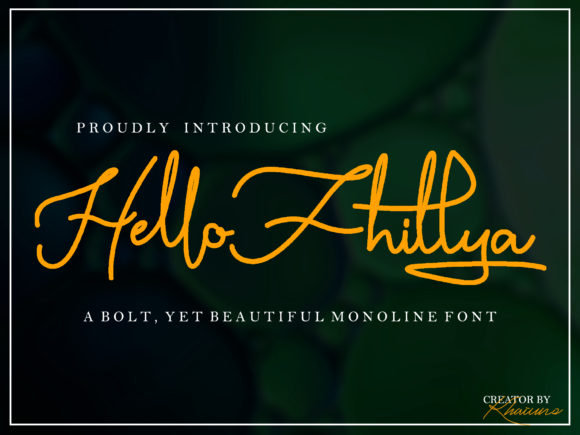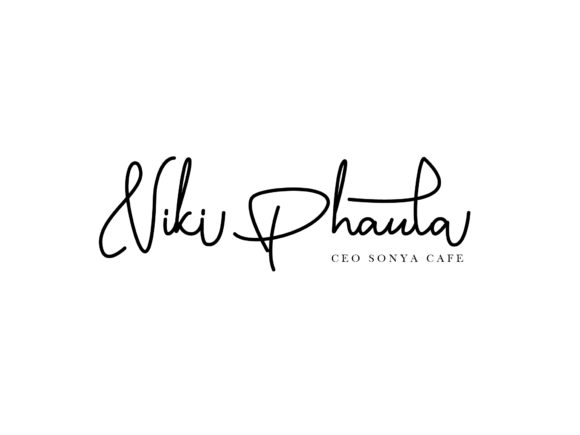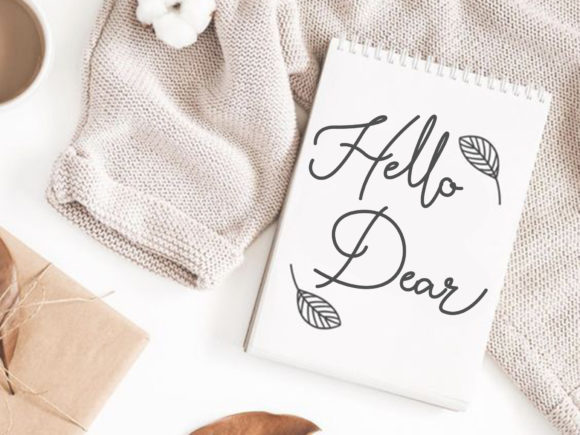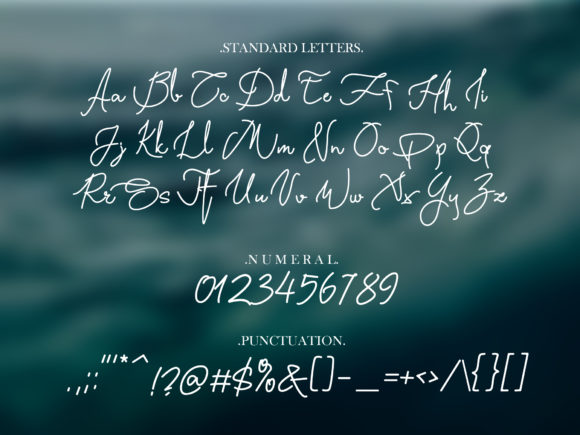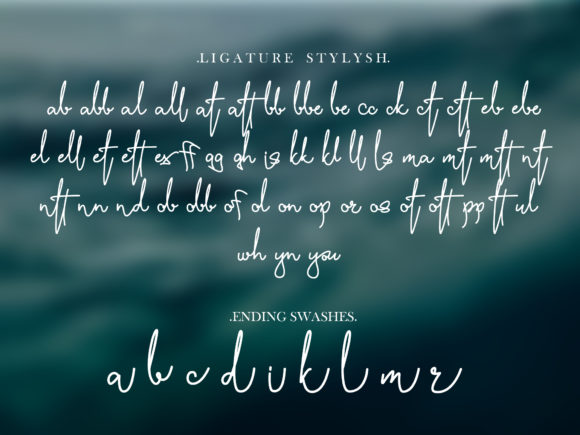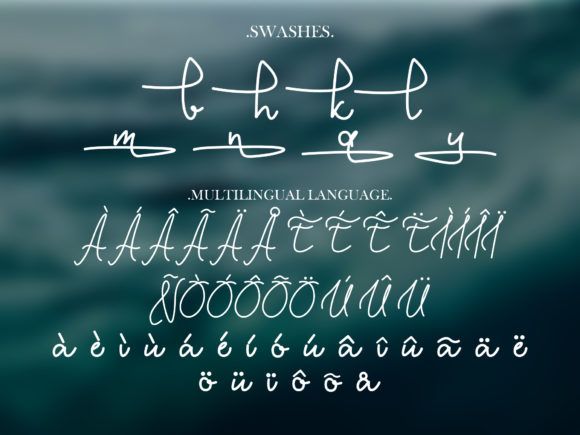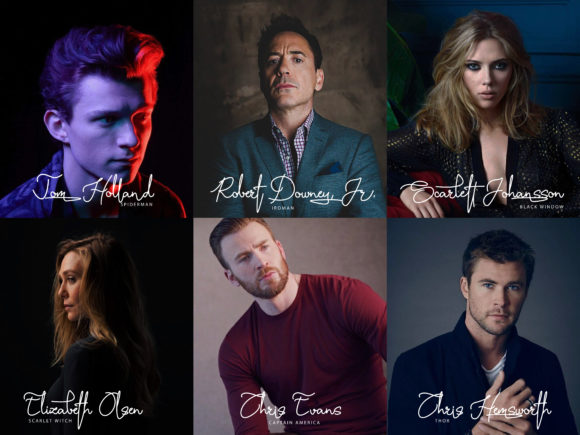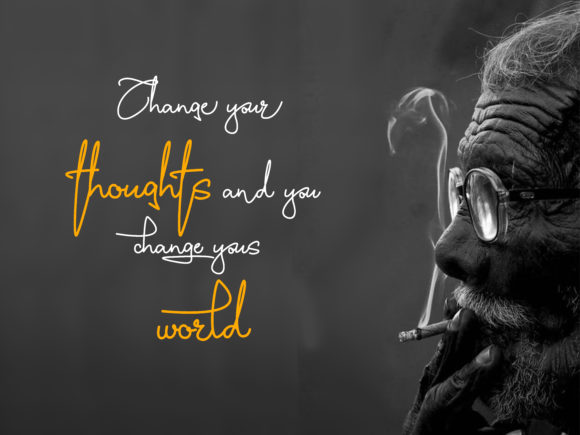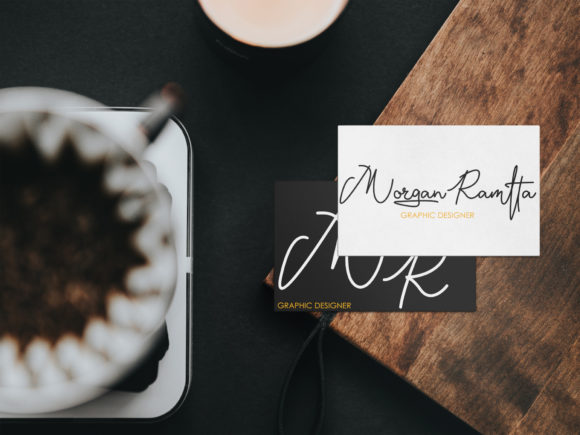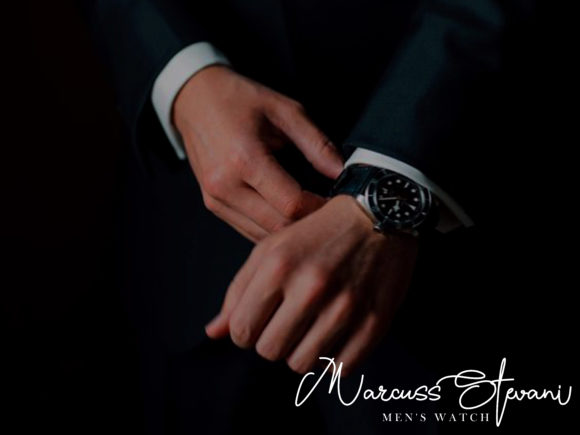
Hello Fhillya Font
About Hello Fhillya Font
Hello Fhillya is a bold yet beautiful monoline script font perfect for many design projects. Fall in love with its charming look & feel!